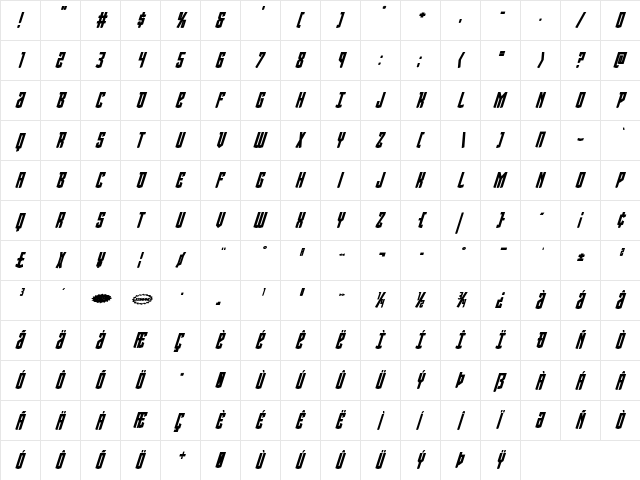
Viceroy of Deacons Bold Italic Bold Italic
Design Context for Viceroy of Deacons Bold Italic Typeface
Viceroy of Deacons Bold Italic is a composed and adaptable typeface that performs quietly and consistently across a wide range of design contexts. The slanted form adds forward momentum and visual energy. Its bold stroke weight gives it real presence on the page.
Pro Tip: Try Viceroy of Deacons Bold Italic for annotation and caption copy alongside an upright companion — the contrast in angle creates a dynamic but ordered typographic system.